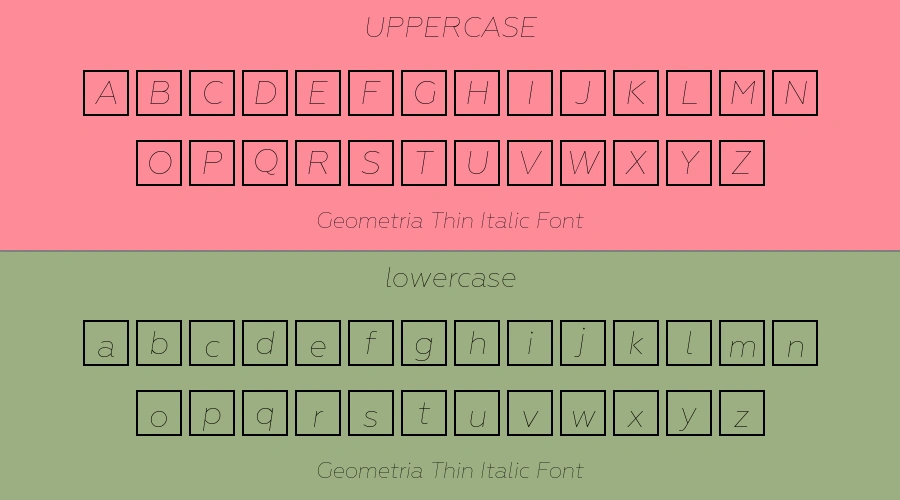
About Geometria Thin Italic Font
Geometria Thin Italic Font represents a sophisticated approach to type design, balancing playful elements with page color. Perfect for logo design, this font family showcases impressive adaptability and functional utility throughout its character set. Designers appreciate its versatility and reliability.
Designers will appreciate nuanced touches including perfect spacing and kerning pairs, adding sophistication to any project. These features become apparent in product names, where file optimization matters most. The careful treatment of counter size and design heritage ensures optimal performance.